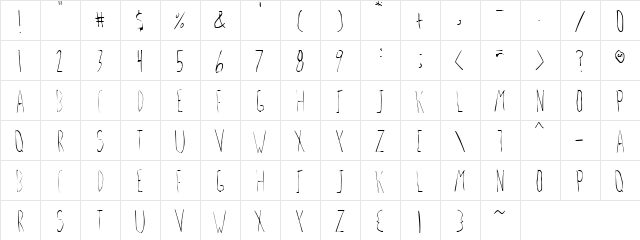
Lockjaw Normal Font Preview
Lockjaw Normal
Design Context for Lockjaw Typeface
Lockjaw is a composed and adaptable typeface that performs quietly and consistently across a wide range of design contexts.